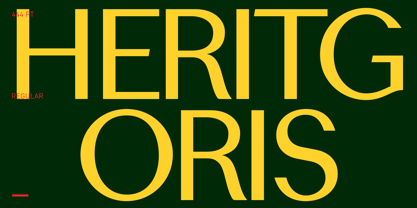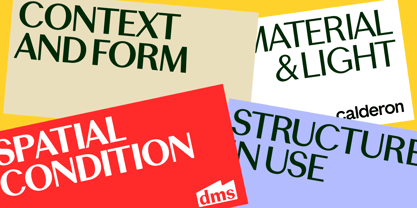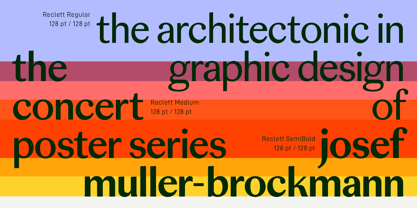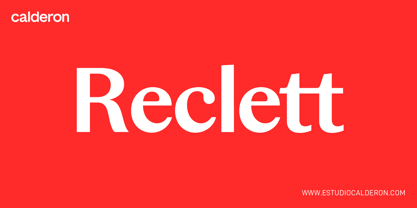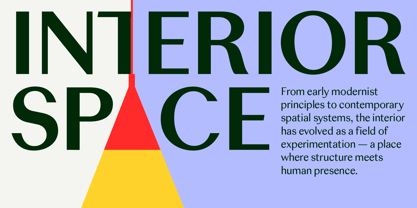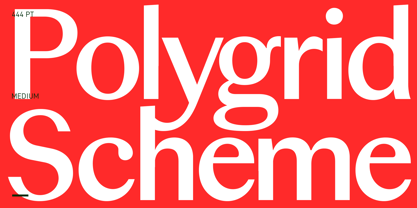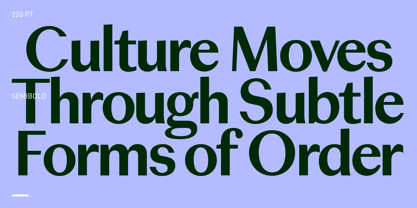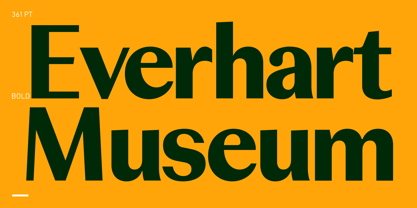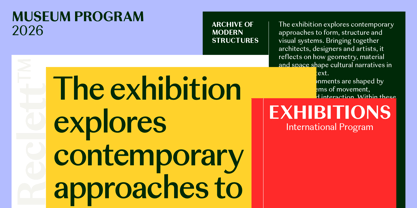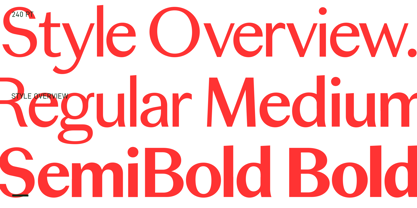
Reclett
by Estudio Calderon
The Reclett Font Family was designed by Felipe Calderón and published by Estudio Calderon. Reclett contains 4 styles and family package options. More about this family
Reclett is a contemporary sans-serif rooted in the logic of classical typography, a serif soul in a sans body. Its origins trace back to an exploration of MN Latin, whose structural approach to serif design informed an early direction. This initial study led to a first iteration, Ballmer, conceived as an expansion of that idea. As the process evolved, however, the project moved beyond its original scope, developing into a distinct system. Reclett retains the rhythm, proportions, and modulation of traditional text faces, translating them into a stripped, sans-serif form that bridges editorial heritage with a modern, system-driven clarity.
Designers: Felipe Calderón
Foundry: Estudio Calderon